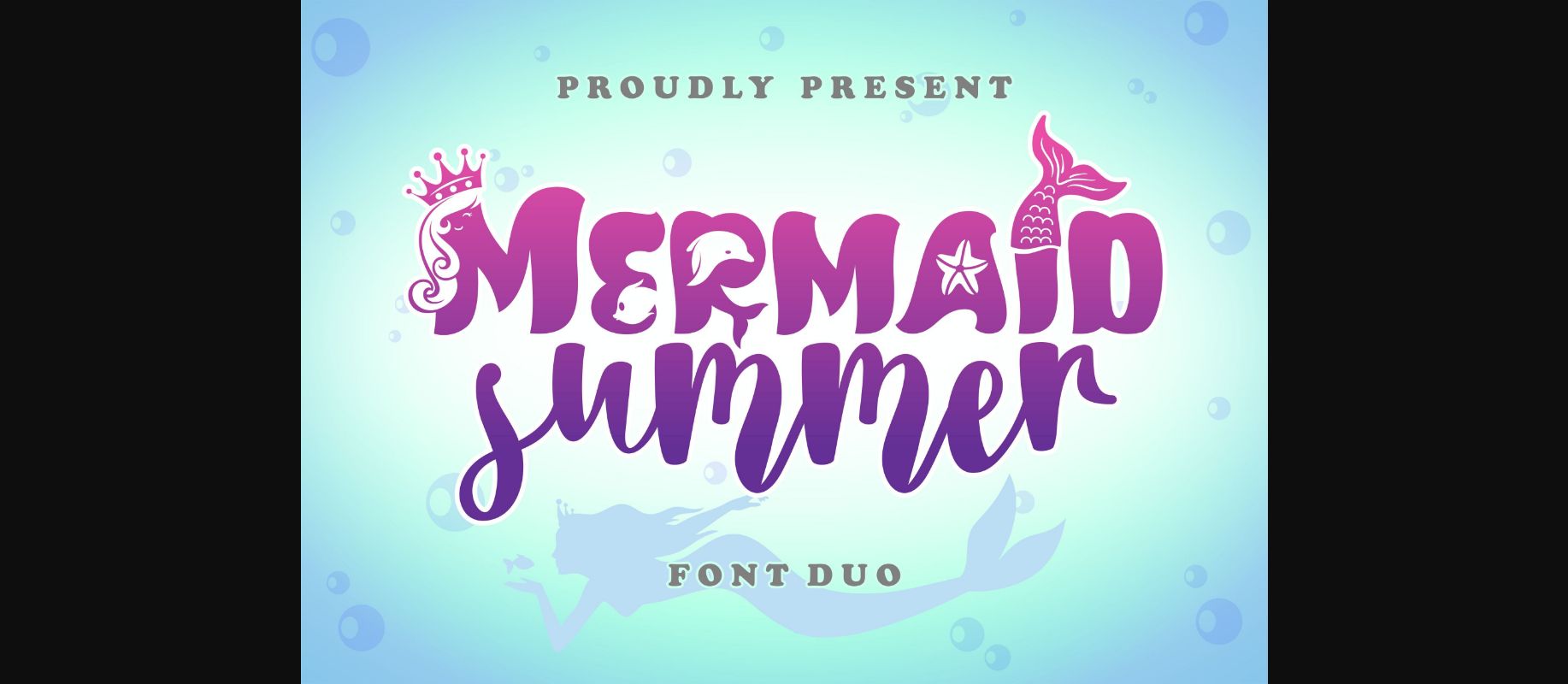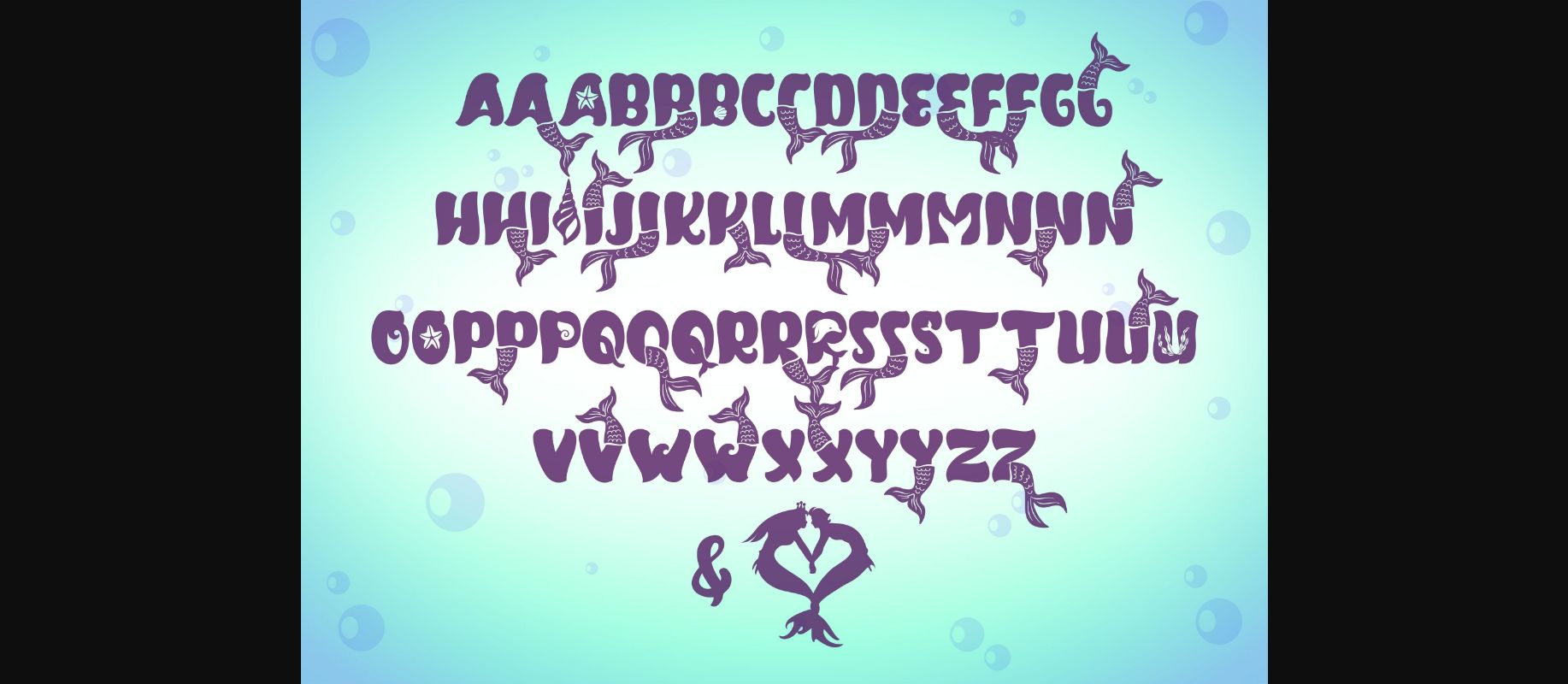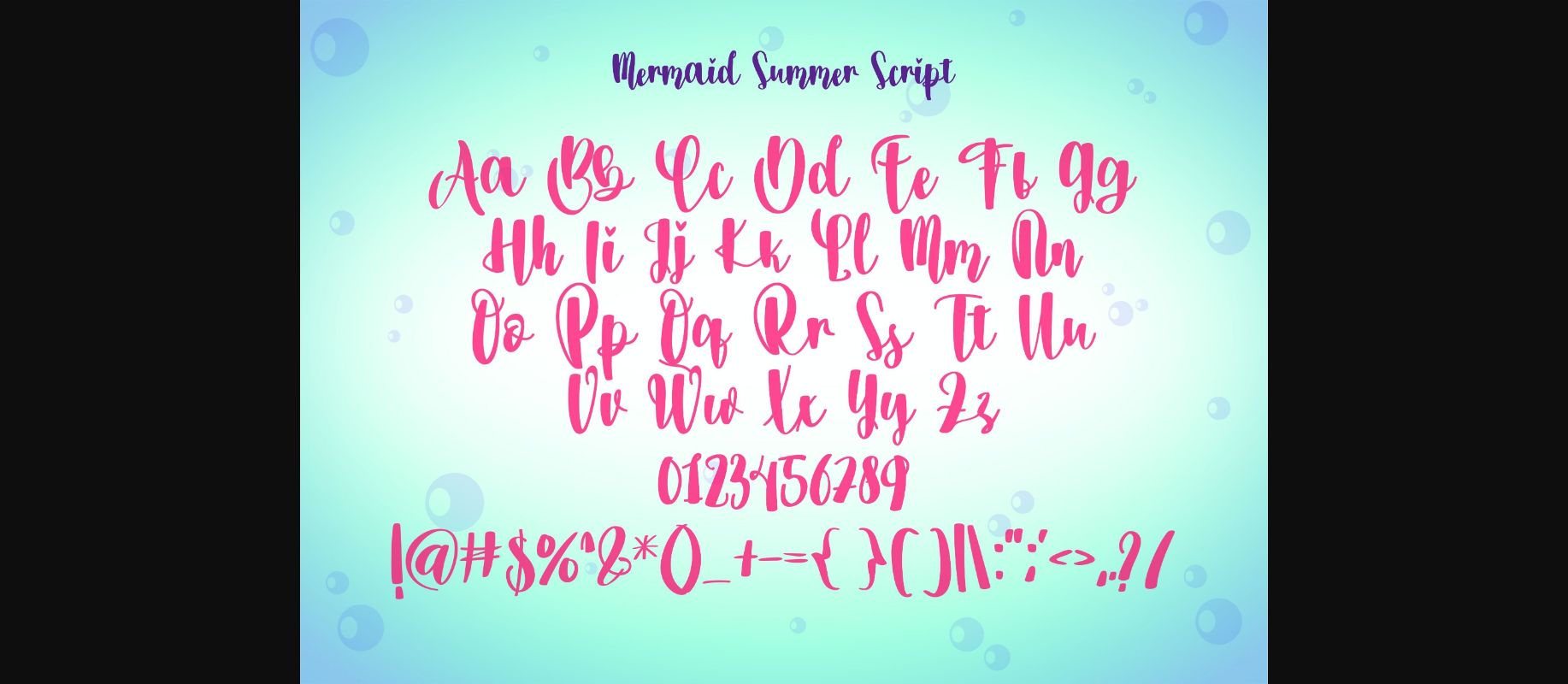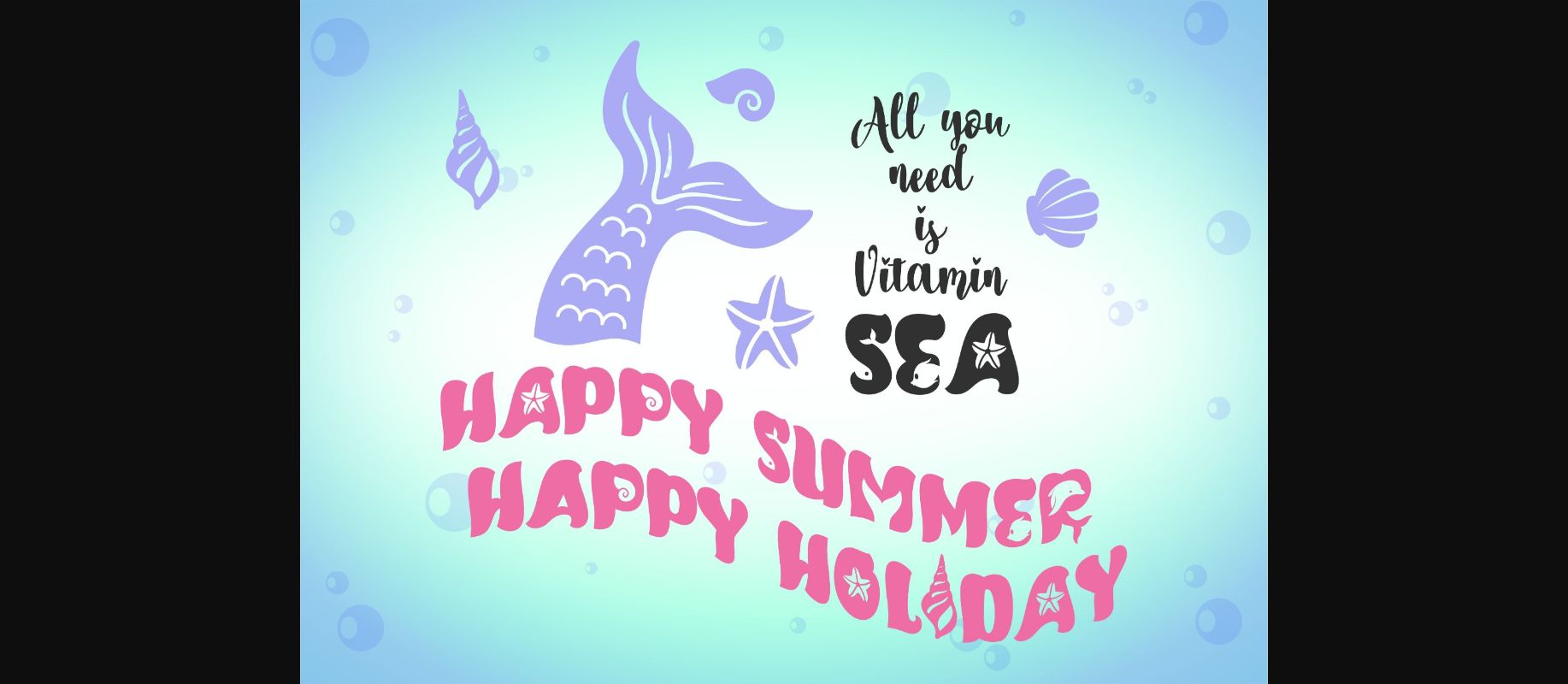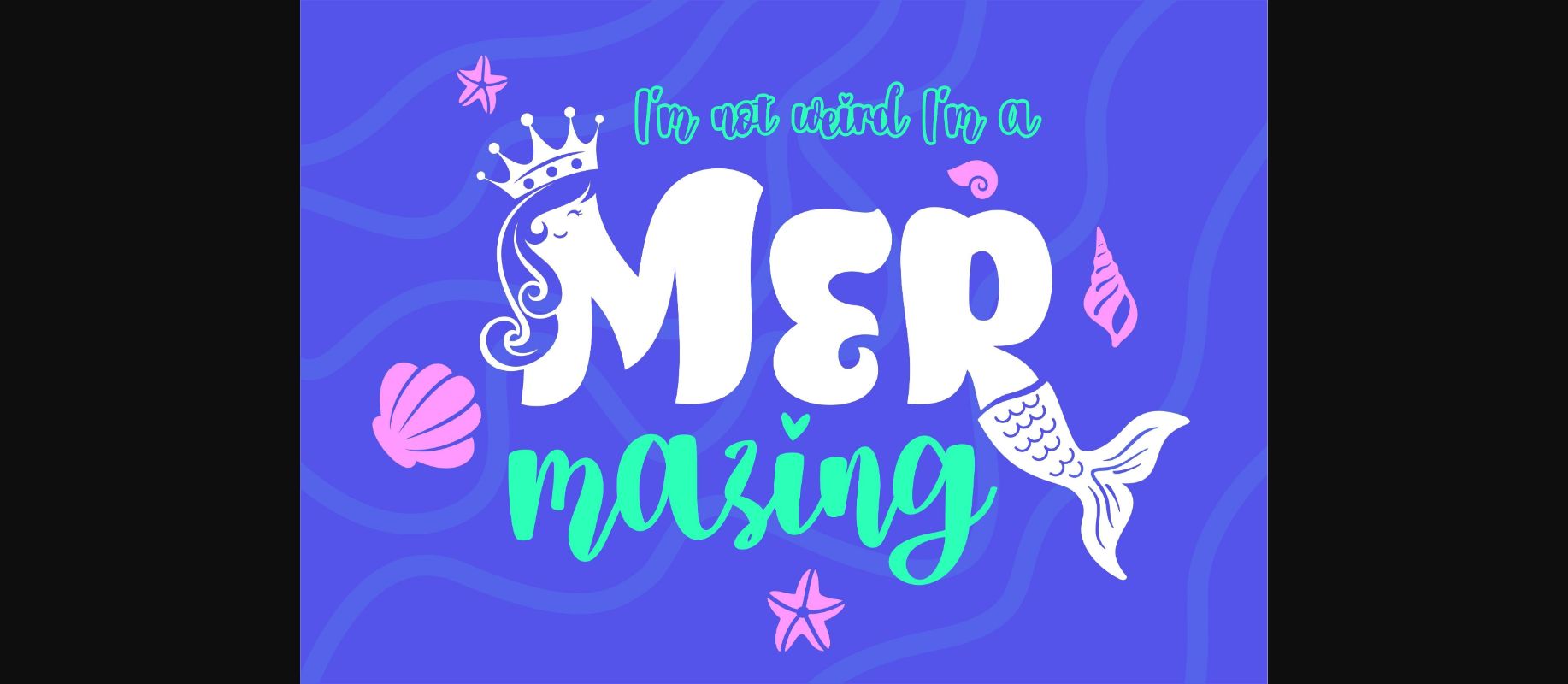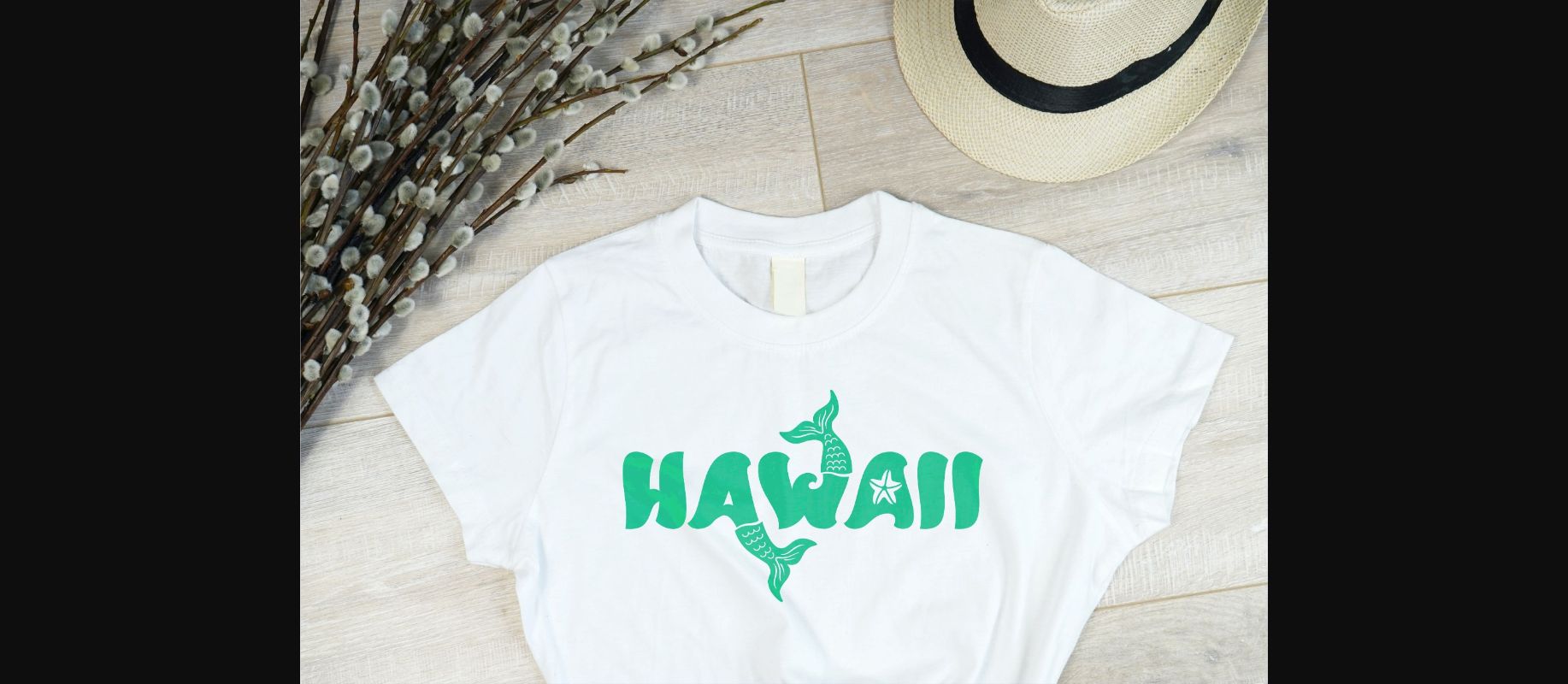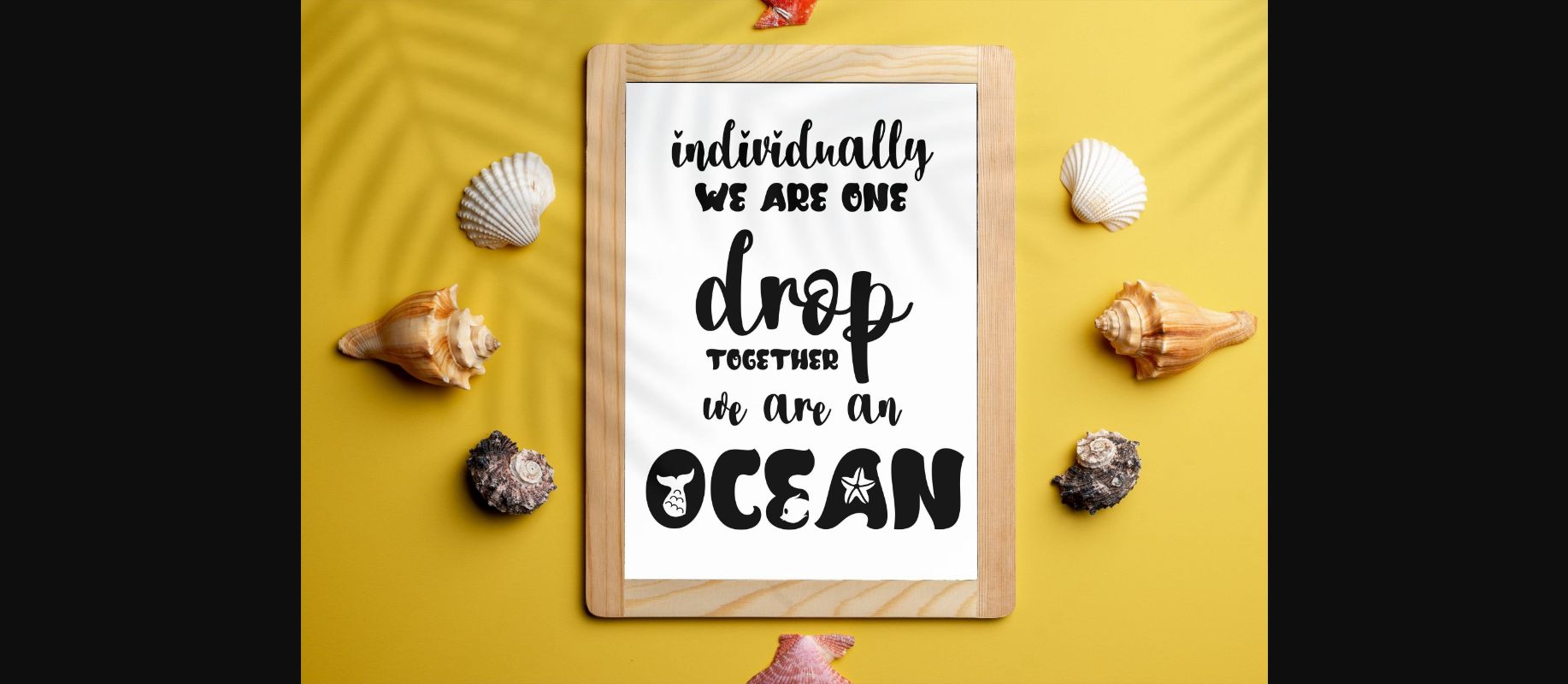
About Mermaid Summer Duo Font
Mermaid Summer is a lovely and cute font duo. Together or separately, these fonts are ideal for adding a fun and charming touch to your craft, especially for those who need a beach and ocean vibe.